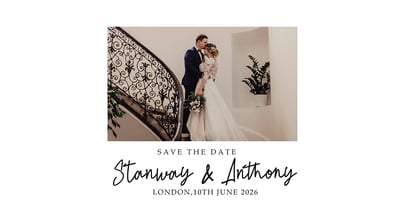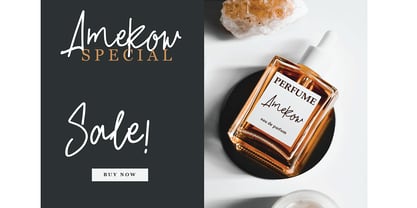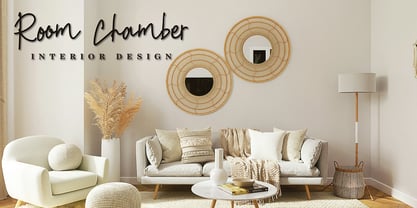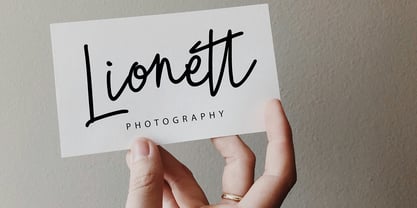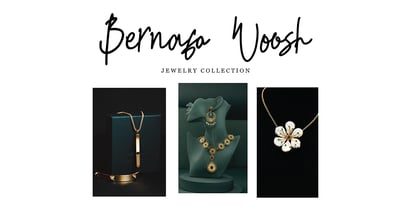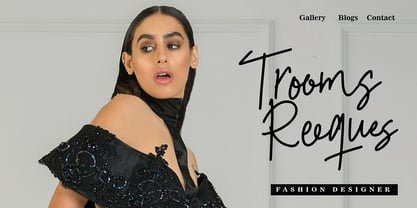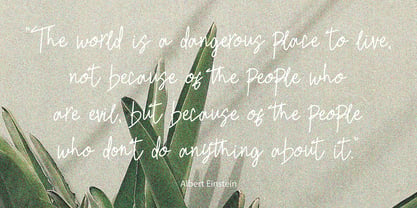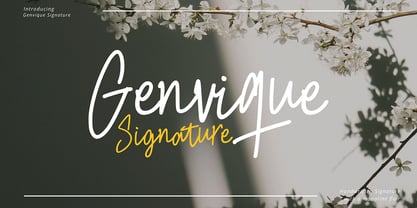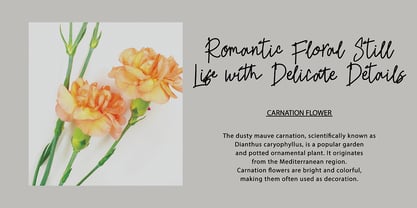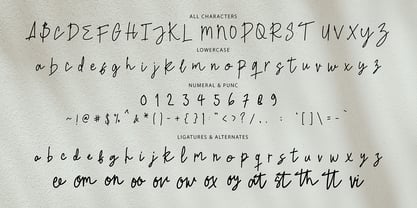
Genvique Signature
Die Schriftfamilie Genvique Signature wurde von Ferdiansyah entworfen und von Pointlab veröffentlicht. Genvique Signature enthält 1 Stile. Mehr über diese Familie
Genvique Signature with a handmade Signature style, decorative characters and a dancing baseline! So beautiful on invitation like greeting cards, branding materials, business cards, quotes, posters, and more!!
Genvique Signature come with 200+ glyphs. The alternative characters were divided into several Open Type features such as Swash, Stylistic Sets, Stylistic Alternates, and Ligature. The Open Type features can be accessed by using Open Type savvy programs such as Adobe Illustrator, Adobe InDesign, Adobe Photoshop Corel Draw X version, And Microsoft Word. And this Font has given PUA unicode (specially coded fonts). so that all the alternate characters can easily be accessed in full by a craftsman or designer.
Genvique Signature Features :
Uppercase & Lowercase International Languange & Symbols Support Punctuation & Number PUA Unicode Range Standard Ligatures Discretionary Ligatures Stylistic Alternates Stylistic Set.